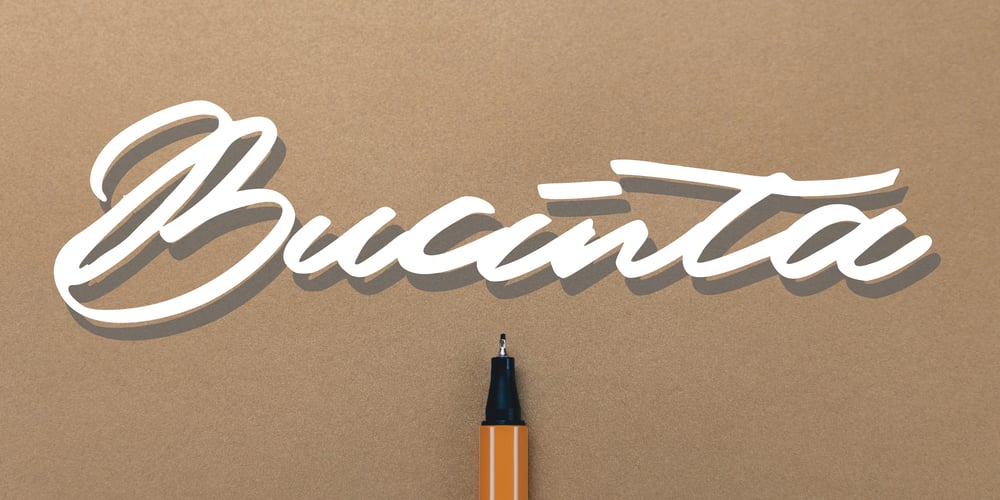
Bucinta
Bucinta font
Bucinta Font Family was designed by Mariyana and published by Goodigital13. Bucinta contains 1 styles and family package options. It easily cooperating together For Magazine, Movies, or Book Titles. For Photography, Wedding Invitation, Restaurant Menu or T-shirt Design. For Flyers, Banner Ads, web and printing. From Food and Fashion to a Cosmetics productbeautiful typographic harmony for a diversity of design projects, including logos & branding, wedding designs, social media posts, advertisements & product designs.